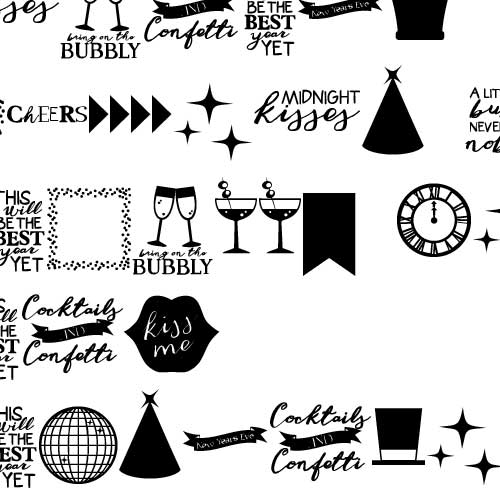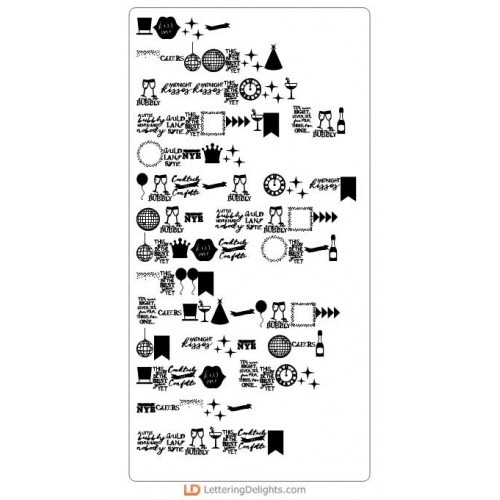
DB Kiss The Year Goodbye - DB
This fun New Years Doodlebat features 26 different New Years themed imagery, perfect for cards, crafts, gifts, decor, parties, scrap book pages, planner stickers and more!